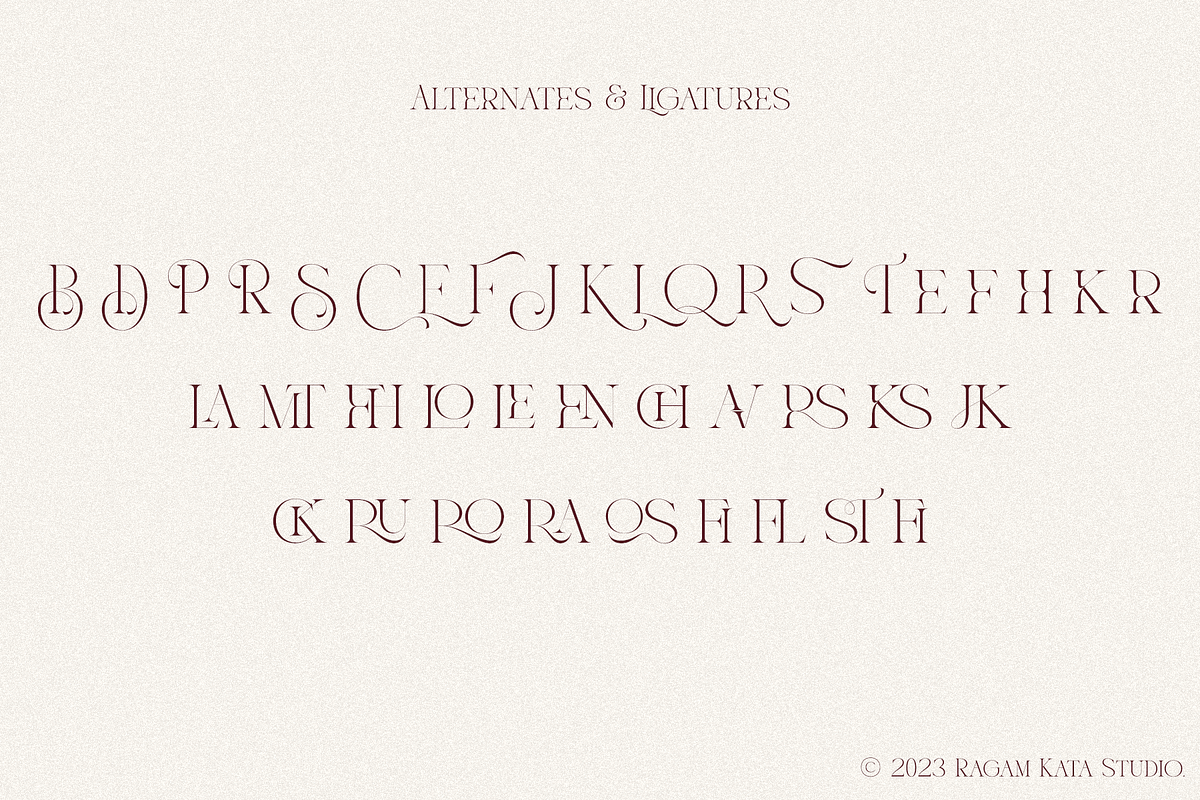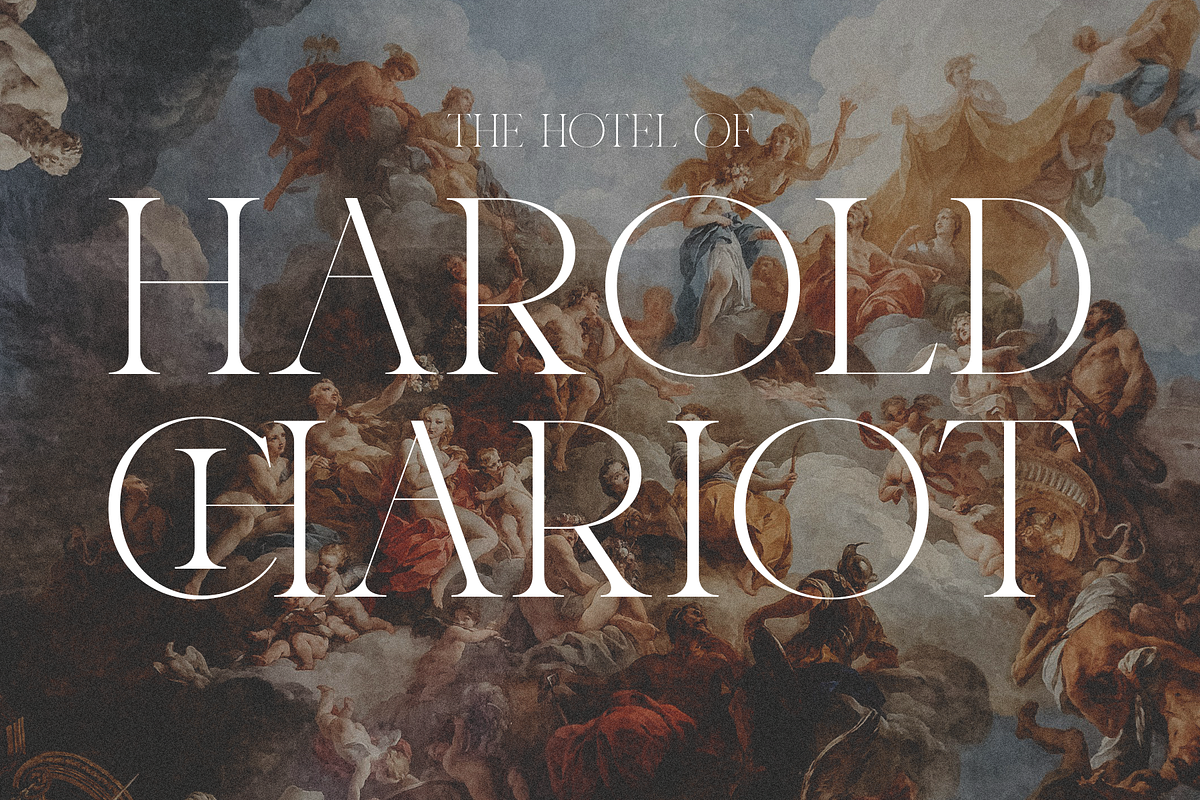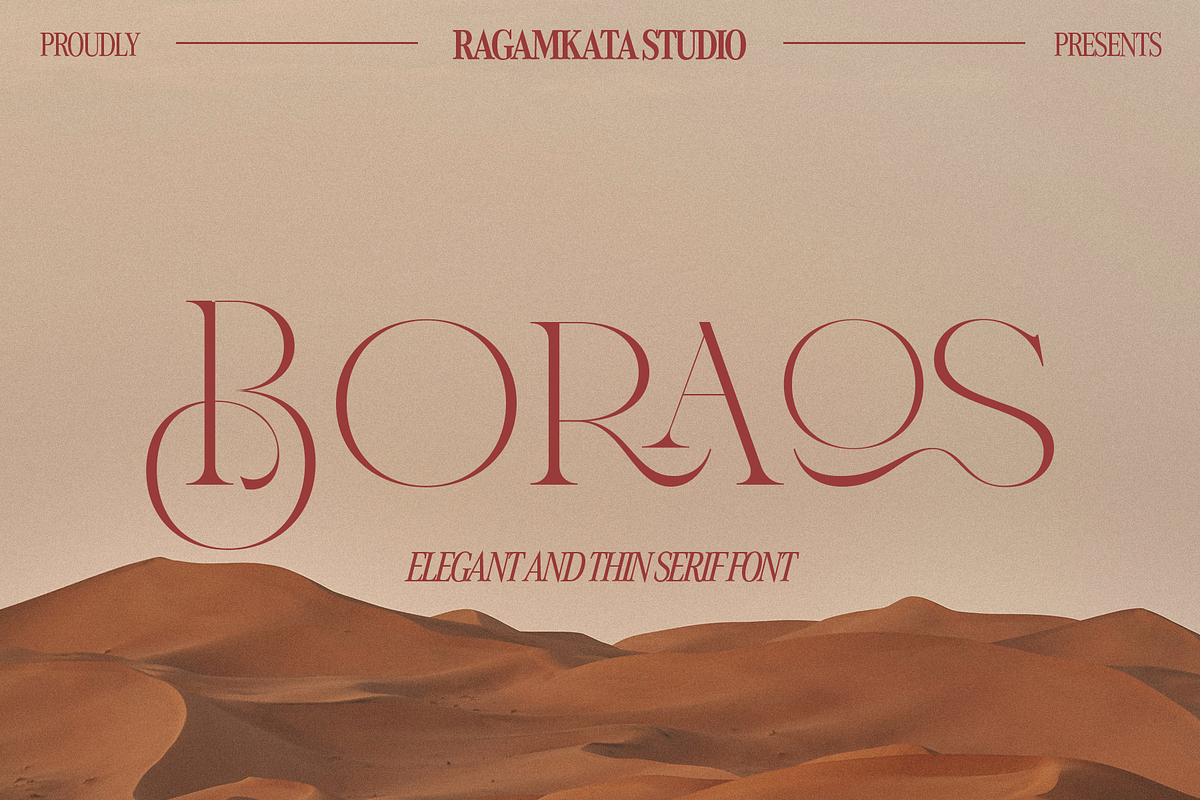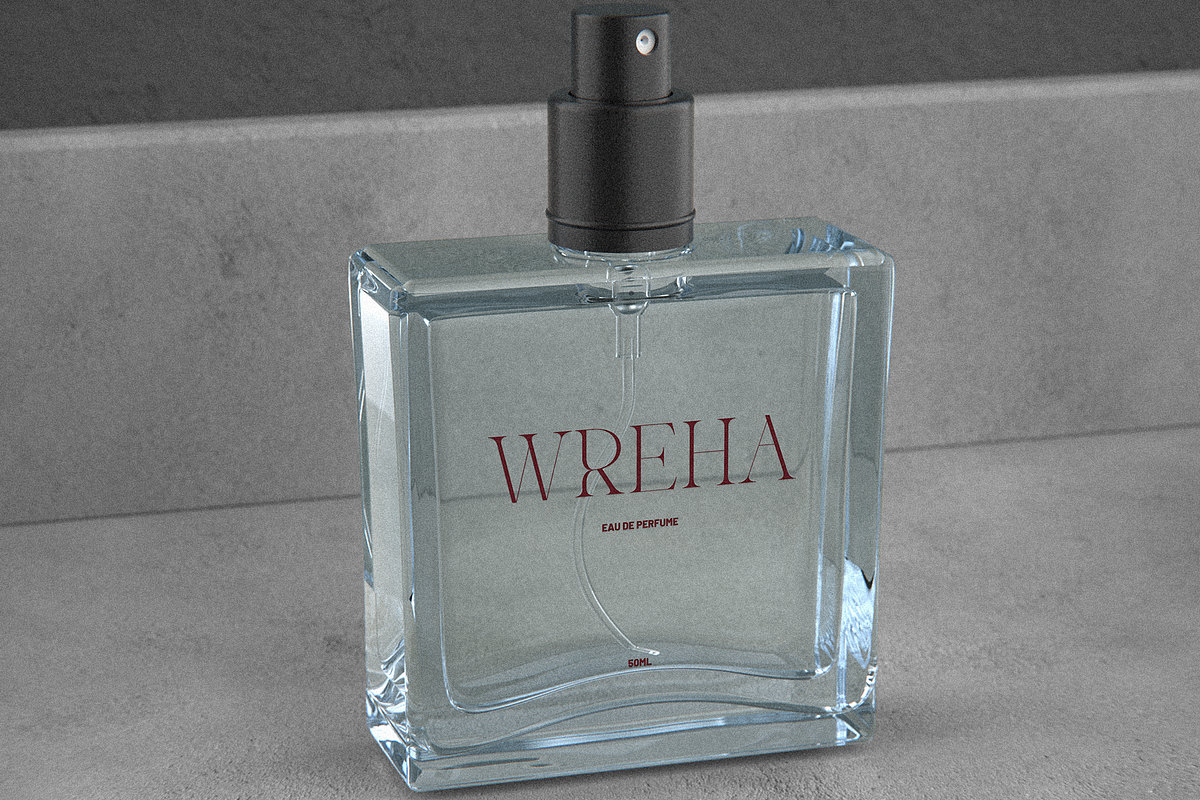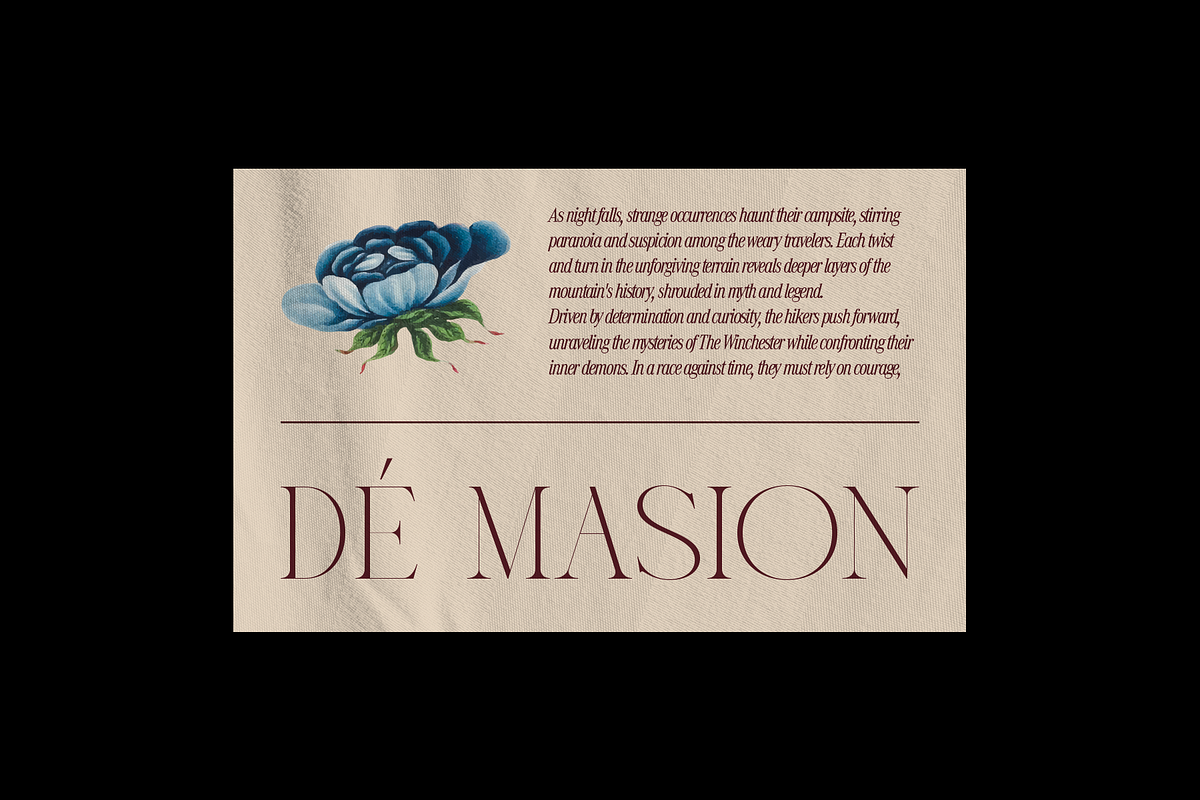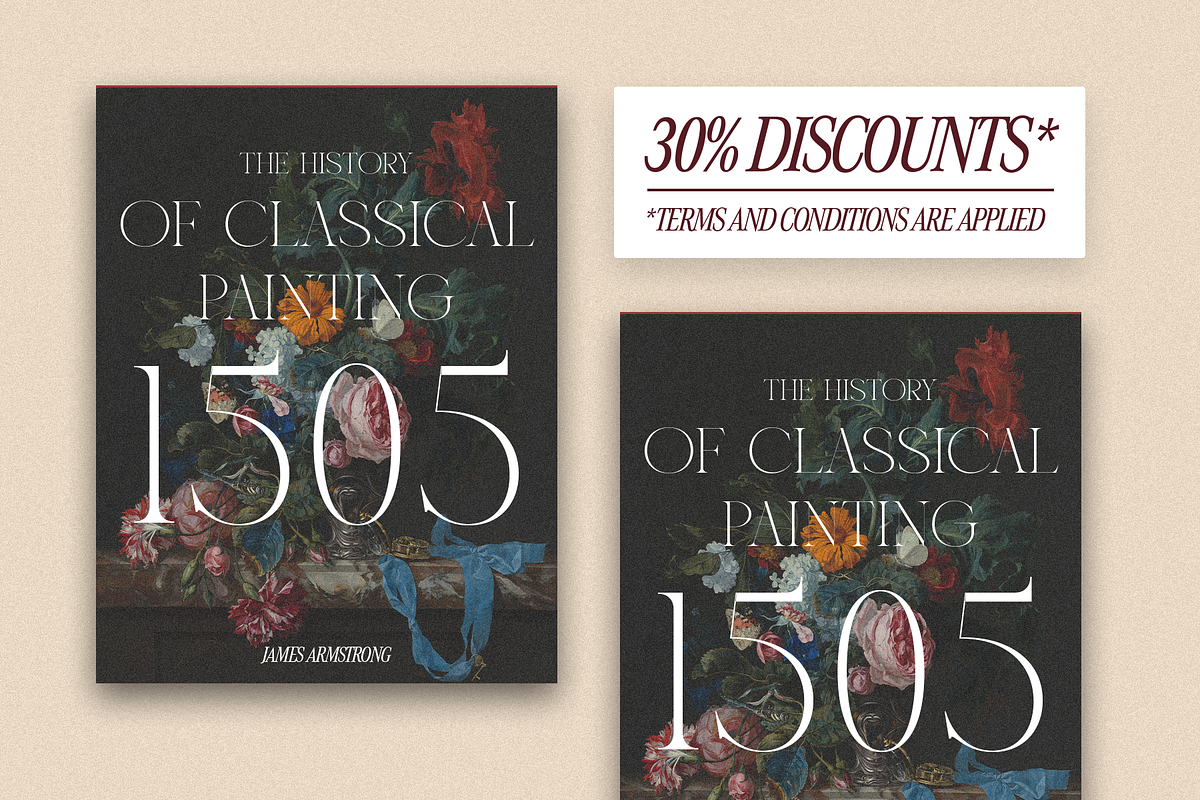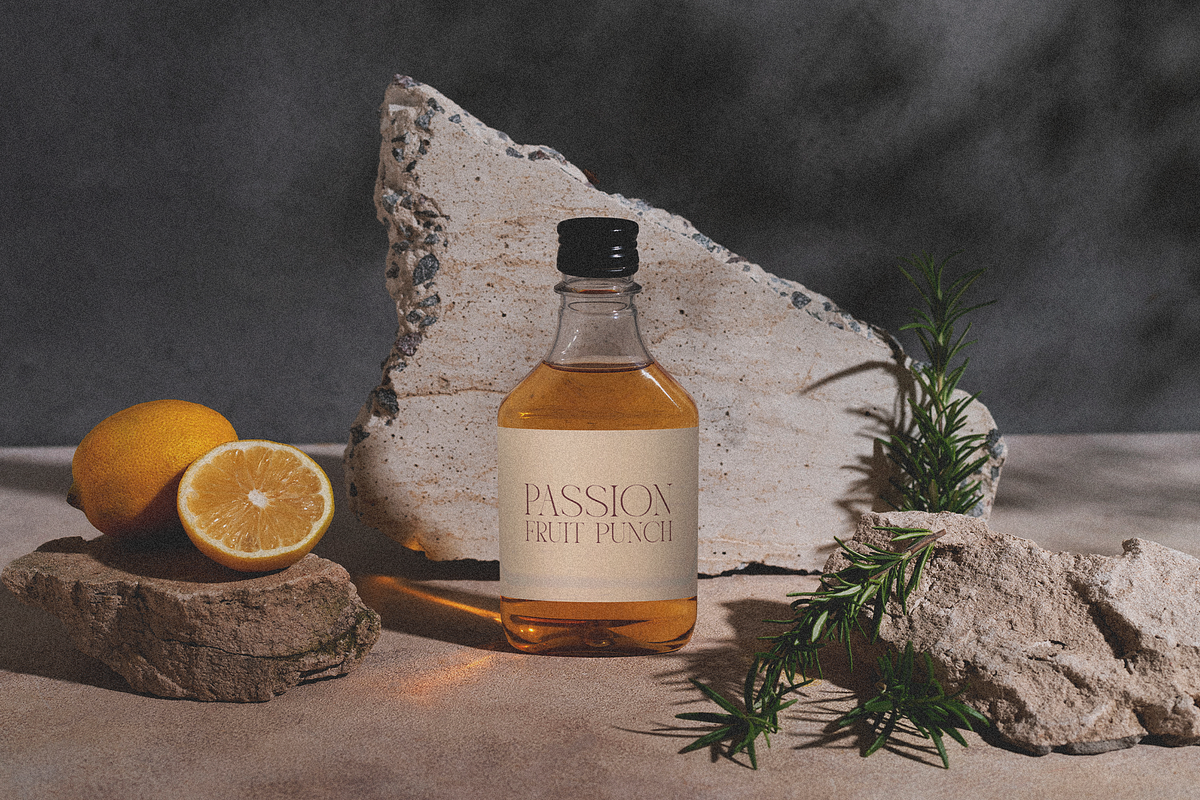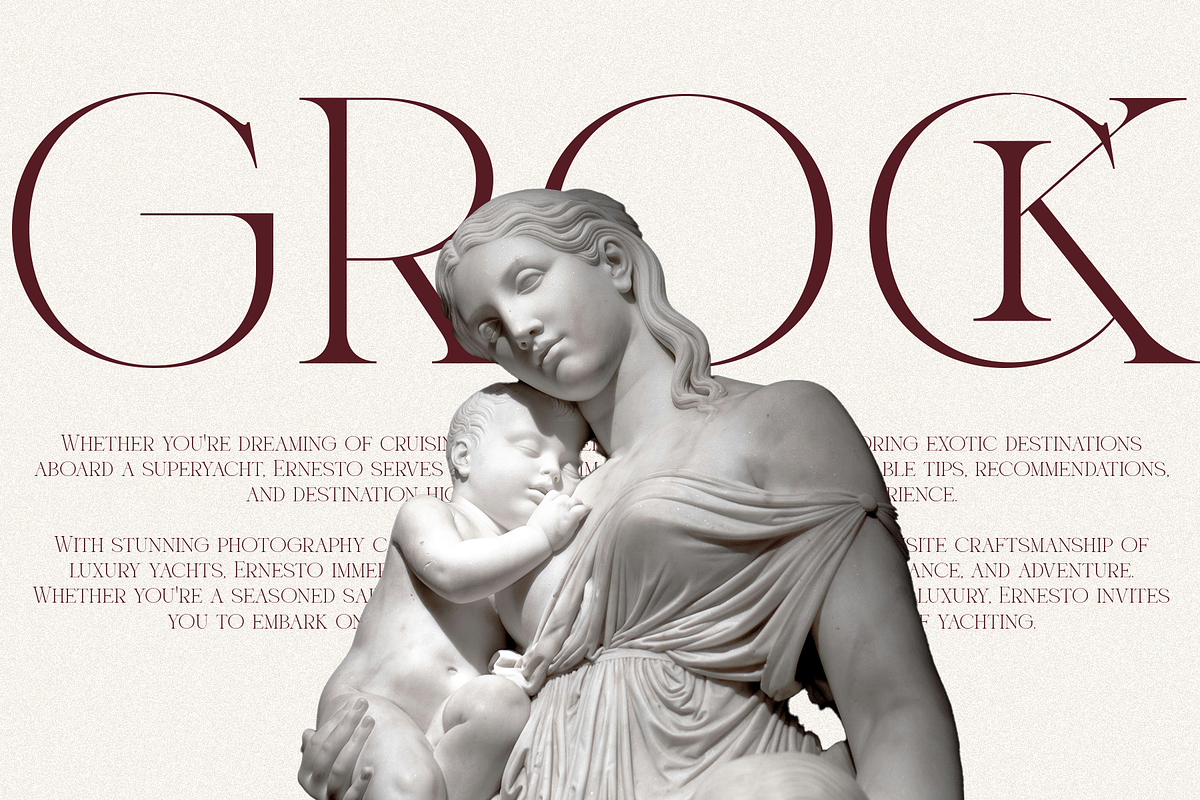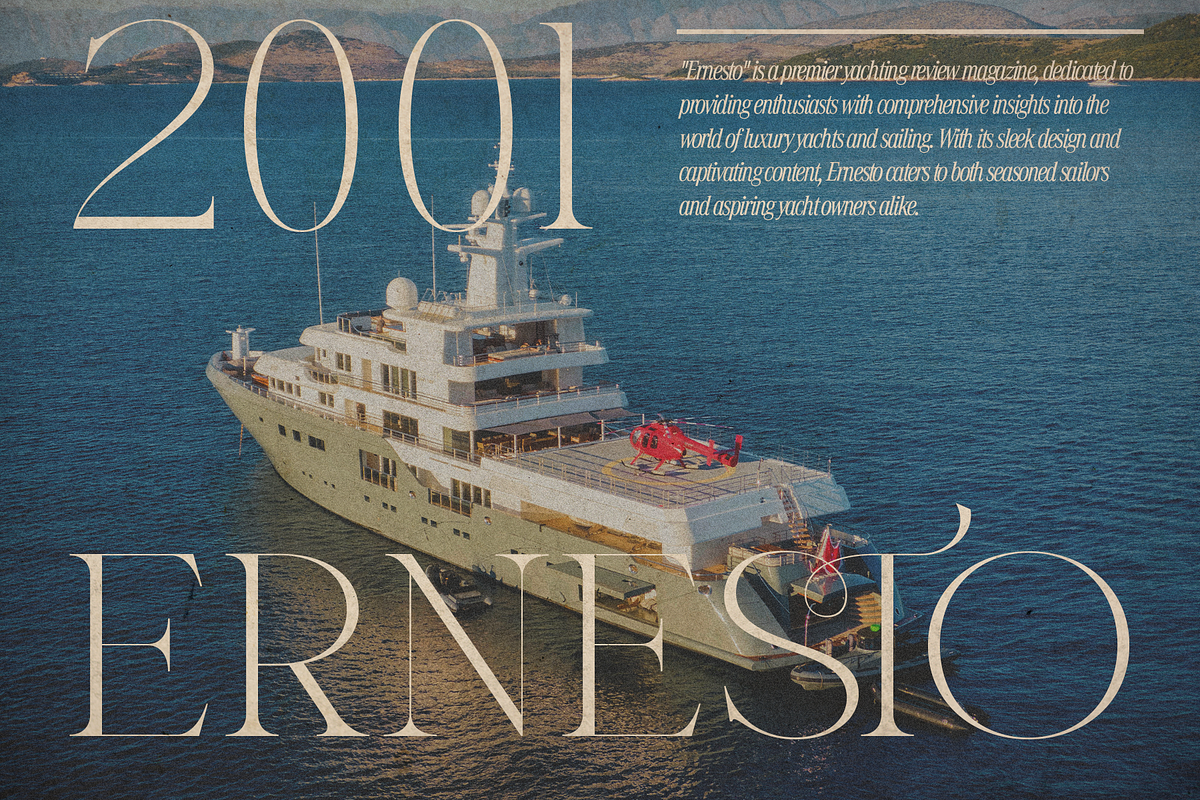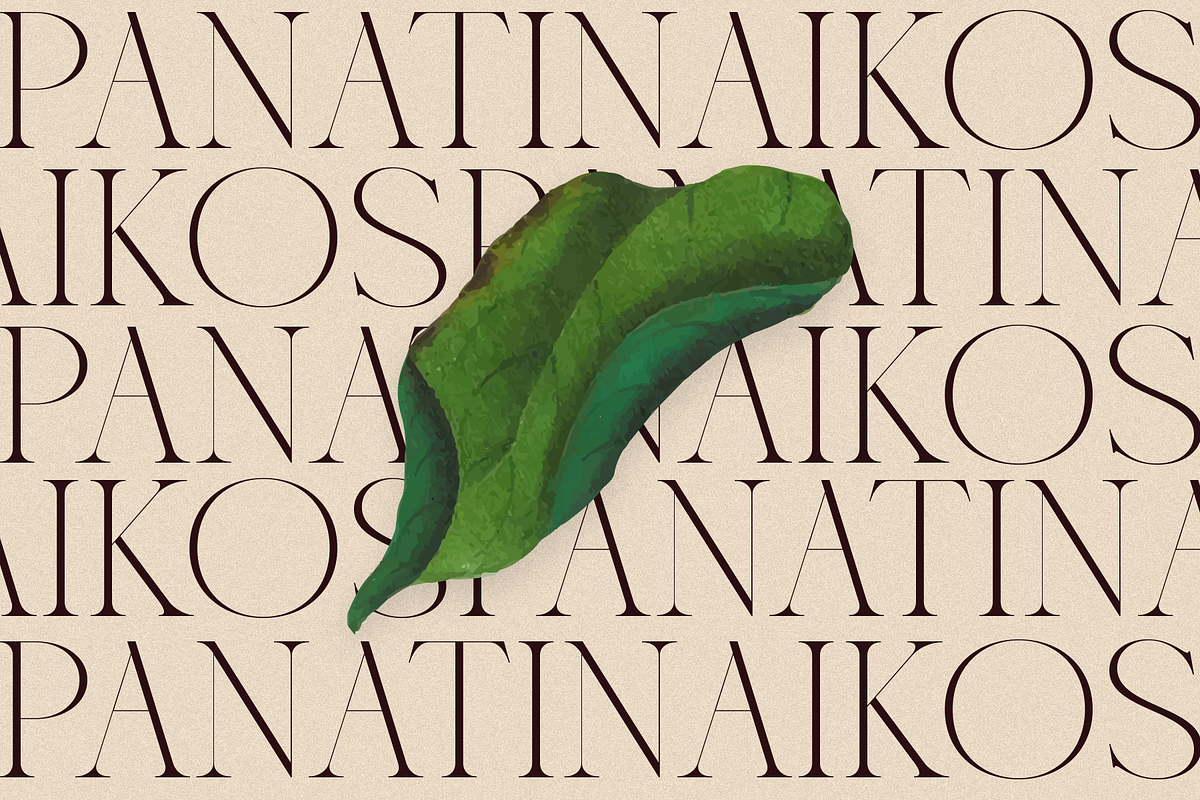
Boraos - Elegant Serif Font
"Introducing Boraos" - The Epitome of Elegance in Thin Serif Fonts!
Boraos isn't just another serif font; it's a symbol of refined sophistication and timeless elegance. With its delicate and slender strokes, Boraos embodies the essence of grace and style in modern typography.
Crafted for designers seeking to add a touch of class to their projects, Boraos offers a perfect balance between elegance and readability. Its thin serifs and graceful curves make it ideal for a wide range of applications, from branding materials to editorial layouts.
- Opentype features ( ligature, alternate )